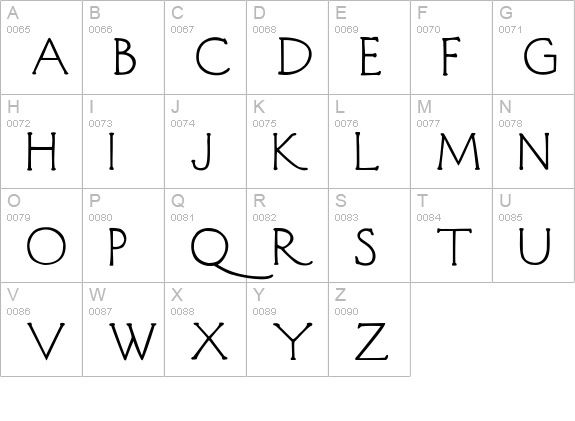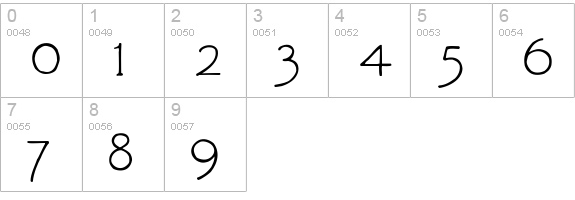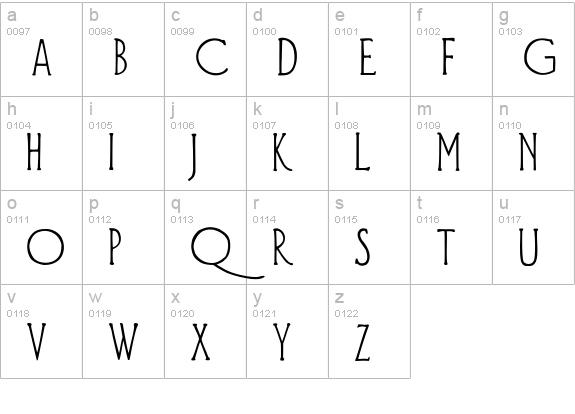
Diehl Deco Font Details
Diehl Deco font is a stylish and elegant typeface that exudes a classic Art Deco charm. Its sleek lines and geometric shapes make it perfect for adding a touch of sophistication to any design project. The sharp angles and bold letterforms create a striking visual impact, making Diehl Deco font ideal for headlines, logos, and branding materials. What's even better is that Diehl Deco font is available for free download at FontsMarket.com. Whether you're a designer looking to enhance your creative projects or a typographer seeking a unique addition to your font collection, Diehl Deco font offers endless possibilities. Embrace the timeless beauty of Art Deco design with this exquisite typeface that is both versatile and visually captivating. Unlock your creativity and elevate your designs with the stunning Diehl Deco font.